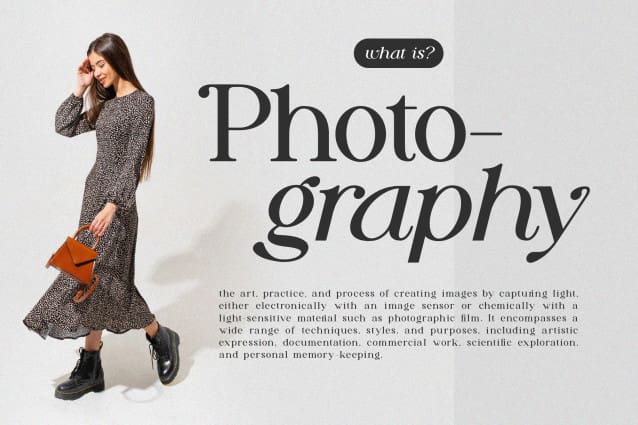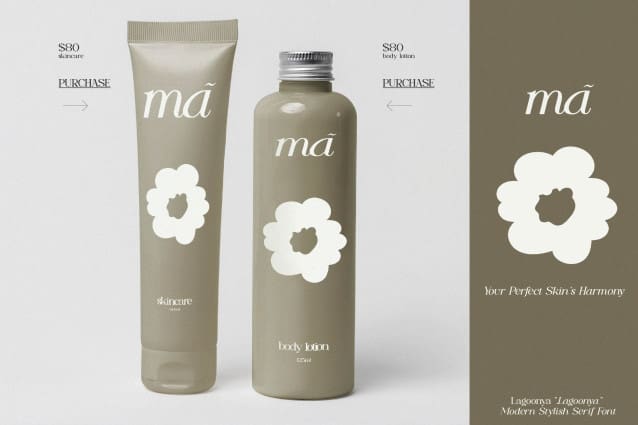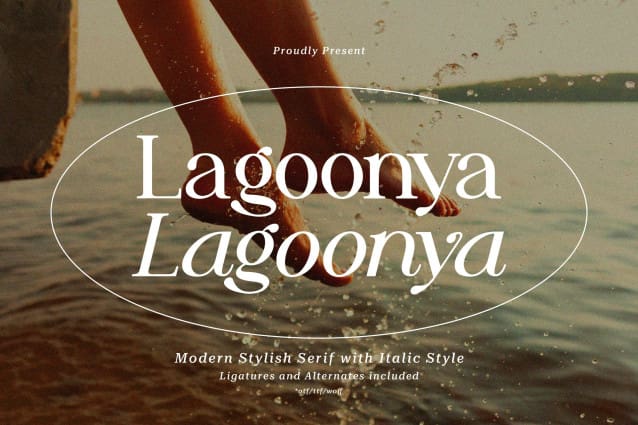
Lagoonya Font
Lagoonya Font | Modern Stylish Serif, from Gracetypestduio, suitable for any projects such as: logos, branding projects, homeware designs, product packaging, mugs, quotes, posters, shopping bags, t-shirts, book covers, name card, invitation cards, greeting cards, label, photography, watermark, special events, and all your other lovely projects that need a Modern Stylish Serif taste.